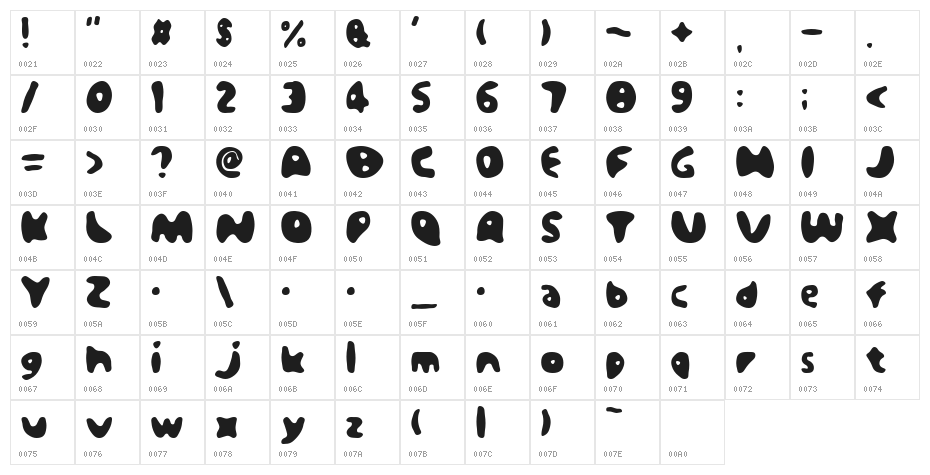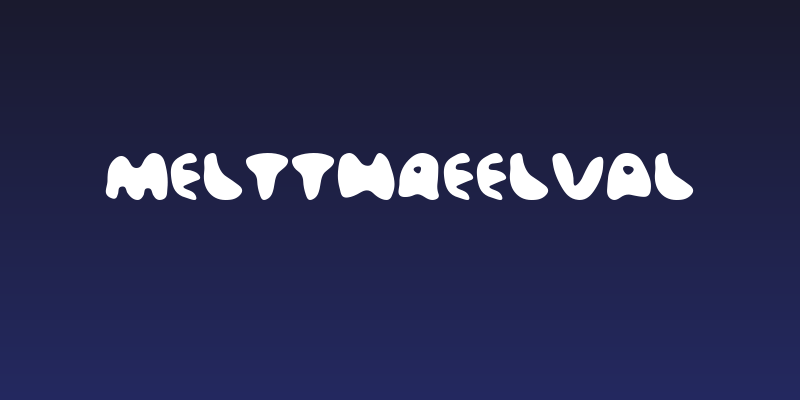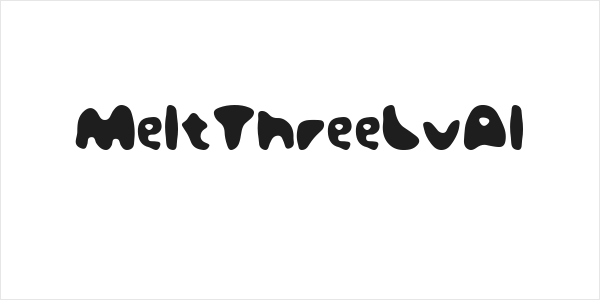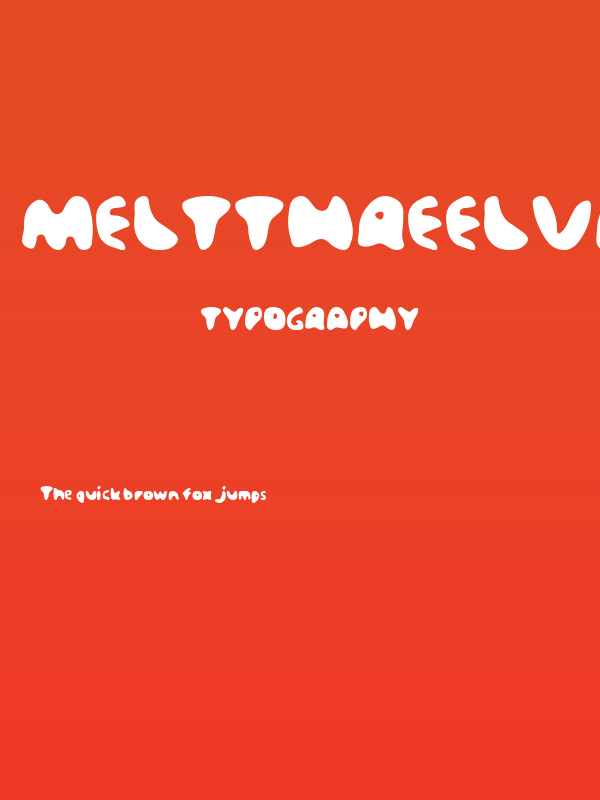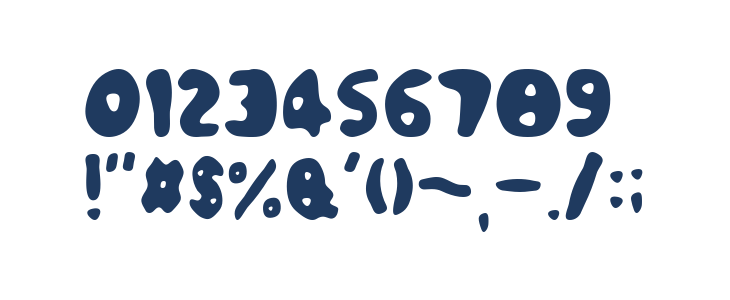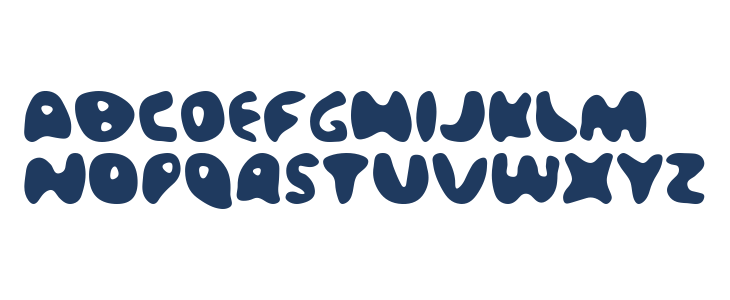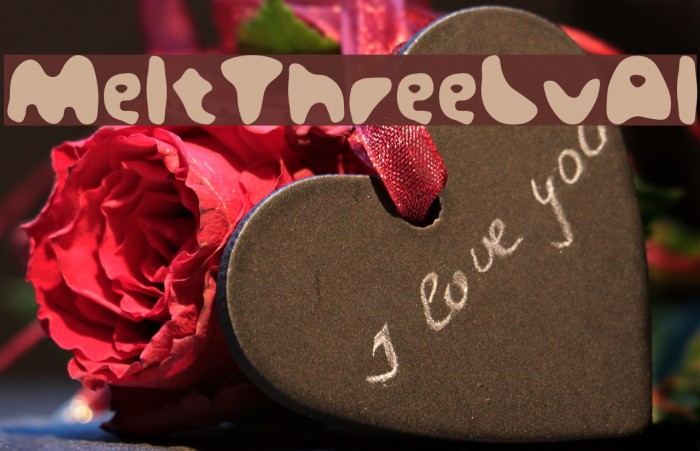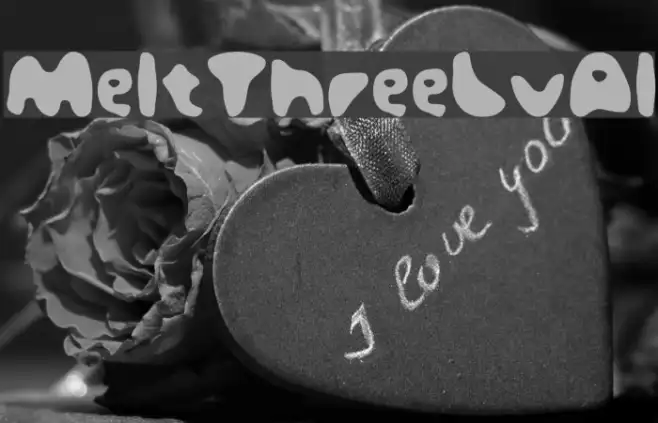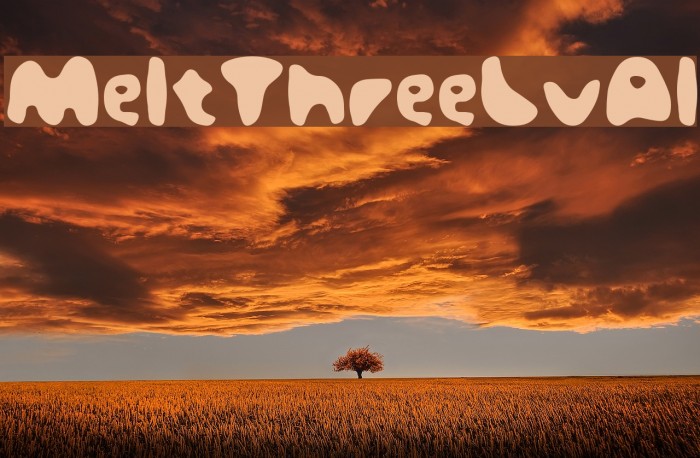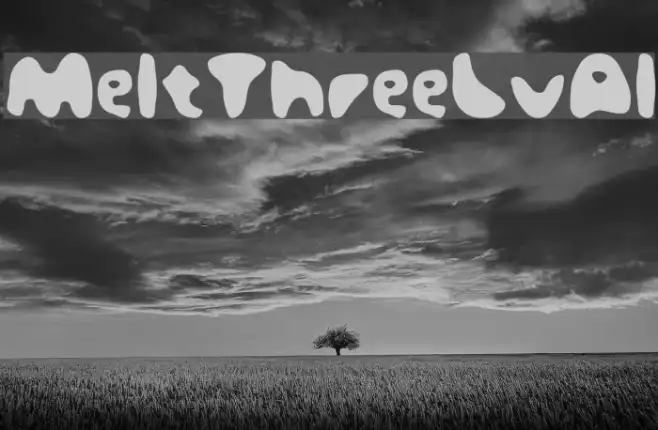
MeltThreeLvAl Font
MeltThreeLvAl Description
This playful and bold font features a unique, organic style with rounded, irregular shapes that give it a whimsical and fun appearance. The characters are thick and substantial, creating a strong visual impact. The font's design is reminiscent of melting or dripping forms, adding a dynamic and fluid feel. Its boldness and distinctiveness make it suitable for eye-catching designs. The font includes a full set of uppercase and lowercase letters, numbers, and a variety of special characters, ensuring versatility in use.
| Overall Style | Playful, Whimsical |
| Proposed Projects | Ideal for children's book covers, playful branding, posters, and creative projects that require a fun and engaging typeface. |